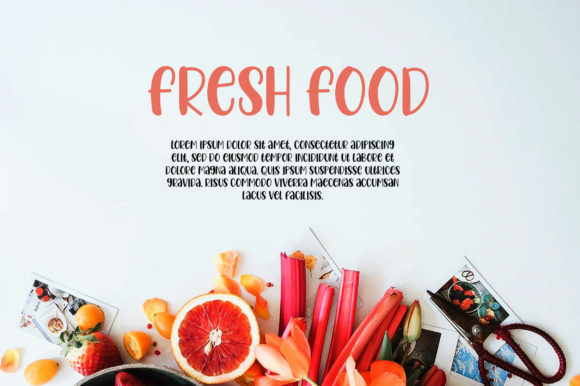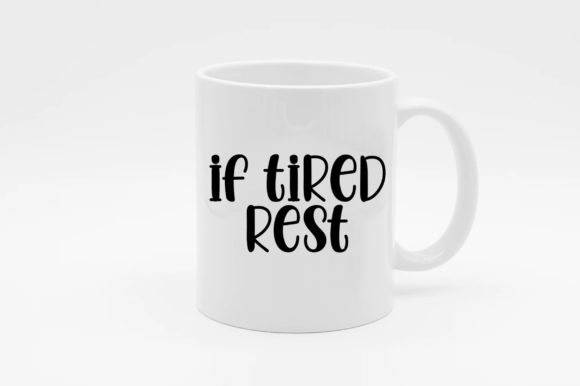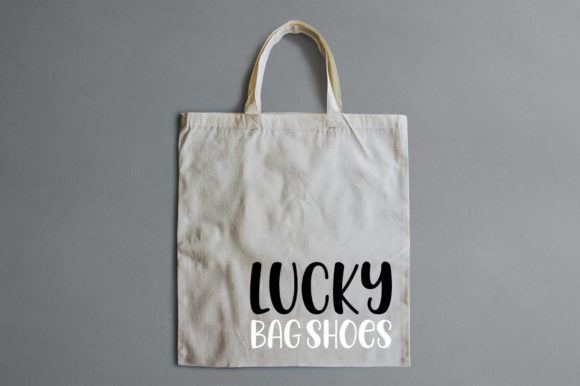
Introduction to Lucky Shoes Font
Have you ever stumbled upon a design project that just sparks joy and creativity? For me, that moment usually happens when I’m browsing through a treasure trove of free design resources. It’s like stumbling upon a hidden gem, and Lucky Shoes Font is definitely one of those gems.
This adorable display font is more than just a pretty face – it’s a game-changer for designers looking to add a touch of whimsy to their projects. With its transparent background and high-quality design, Lucky Shoes Font is the perfect addition to any creative endeavor. Whether you’re working on a logo, a social media graphic, or a marketing campaign, this font will brighten up your design and leave a lasting impression.
Key Features of Lucky Shoes Font
- High-quality, unique design perfect for a creative project or design resource
- High-resolution design, ideal for printing or digital use
- Unique, hand-drawn style that adds a personal touch to any design
- Perfect for use in logos, branding, and other design elements where a distinctive font is needed
Honest Review: Lucky Shoes Font
As a designer, I’m always on the lookout for high-quality fonts to elevate my creative projects. Lucky Shoes Font is a free download that caught my eye, and I’m excited to share my thoughts on it.
- Unique and quirky design aesthetic
- Perfect for adding a touch of whimsy to your designs
- Transparent background makes it easy to use with any color palette
- High-quality design that looks great at various font sizes
One of the things I appreciate about Lucky Shoes Font is its versatility. It’s a great choice for designers who want to add a little personality to their projects without going overboard.
- May not be suitable for formal or professional designs
- Limited character set (only includes uppercase and lowercase letters, with some punctuation marks)
Overall, I think Lucky Shoes Font is a great addition to any designer’s toolkit. While it may not be perfect for every project, it’s a fun and creative resource that’s sure to add some excitement to your designs.
To get the most out of the Lucky Shoes Font, try combining it with a transparent background to create a unique and stylish design. Experiment with different font sizes and colors to find the perfect look for your project.
Alternatives to Lucky Shoes Font
Lato is a clean, modern sans-serif font perfect for creative projects that require a professional and elegant touch. It’s available for free download and comes in multiple weights, making it suitable for various design needs. Lato is ideal for use in logos, headings, and body text.
Compared to Lucky Shoes Font, Lato has a more subtle and refined feel, making it suitable for a wider range of design applications. It’s also highly customizable, allowing designers to adjust its appearance to fit their creative project’s requirements.
Montserrat is a geometric sans-serif font designed for use in urban environments. It’s a high-quality design resource that’s perfect for creative projects that require a strong, modern look. Montserrat is available for free download and comes in multiple weights, making it suitable for use in headings, body text, and other design elements.
Compared to Lucky Shoes Font, Montserrat has a more angular and geometric feel, making it suitable for use in logos, headings, and other design elements that require a strong, modern look. It’s also highly customizable, allowing designers to adjust its appearance to fit their creative project’s requirements.
Open Sans is a clean, modern sans-serif font designed for use in digital applications. It’s a highly legible font that’s perfect for creative projects that require a clear and concise message. Open Sans is available for free download and comes in multiple weights, making it suitable for use in headings, body text, and other design elements.